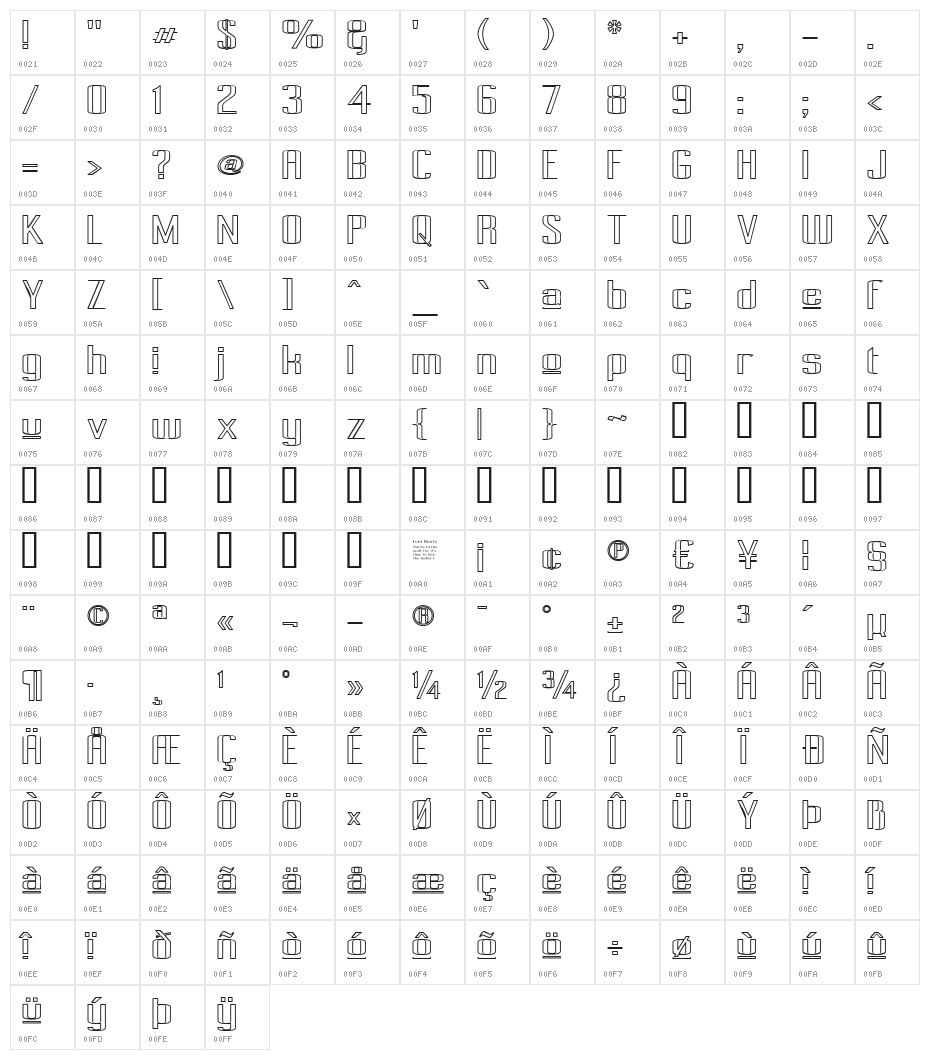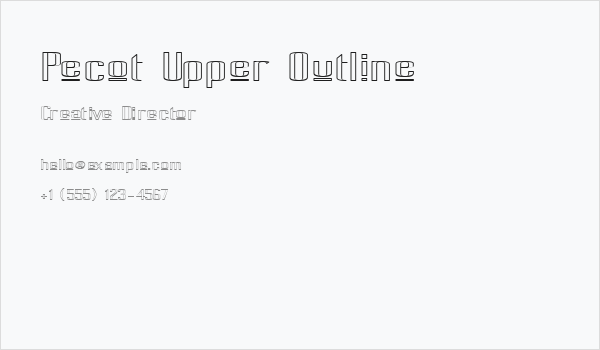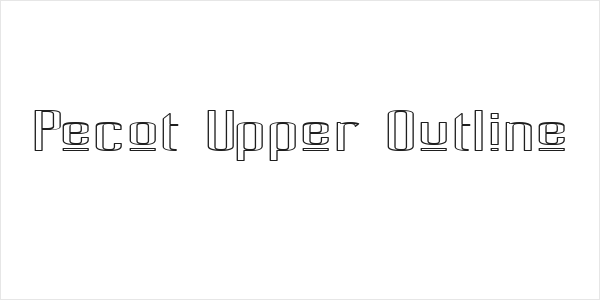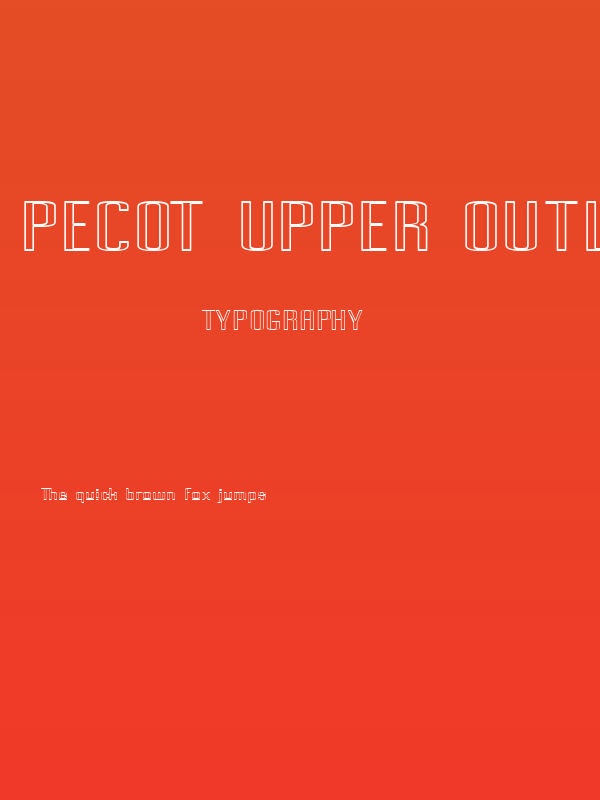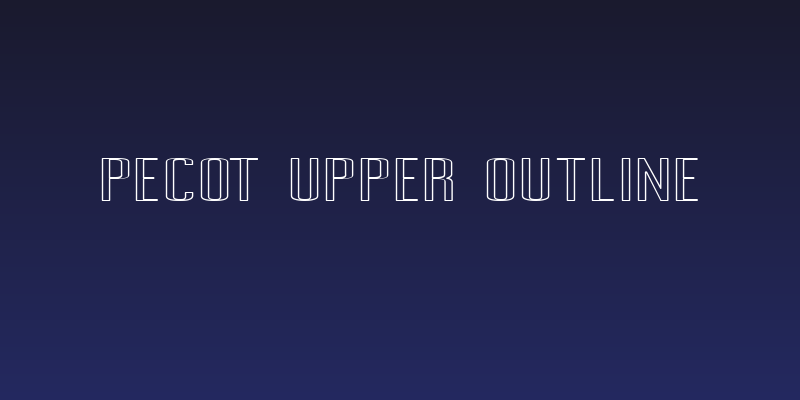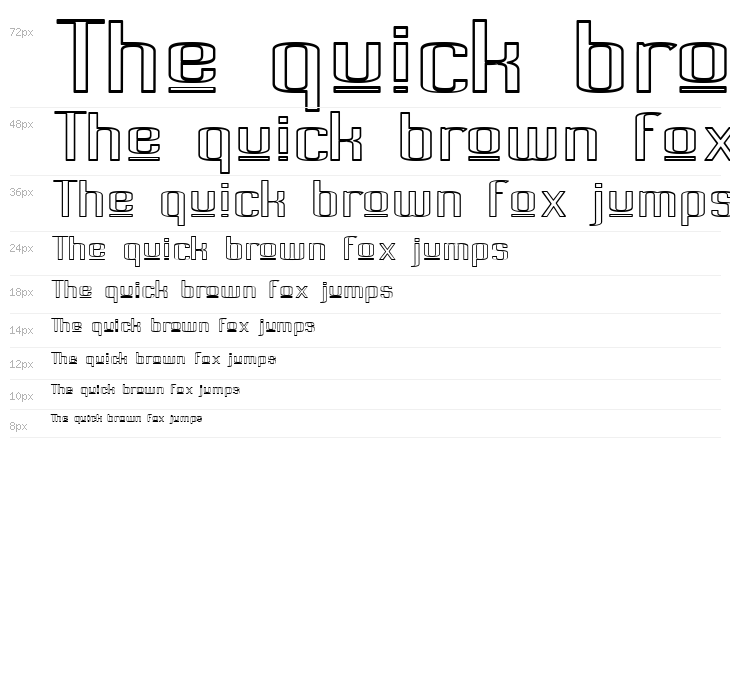
Pecot Upper Outline Font
Pecot Upper Outline Description
This font features an outline style with a geometric and modern aesthetic. The uppercase letters are bold and structured, while the lowercase letters maintain a consistent design with a slightly softer touch. Numbers and special characters follow the same outline pattern, providing a cohesive look. The font's open and airy design makes it suitable for a variety of creative applications, offering a unique visual appeal that stands out in both digital and print media.
| Proposed Projects | Ideal for branding, posters, headlines, and digital artwork where a modern and distinctive look is desired. |